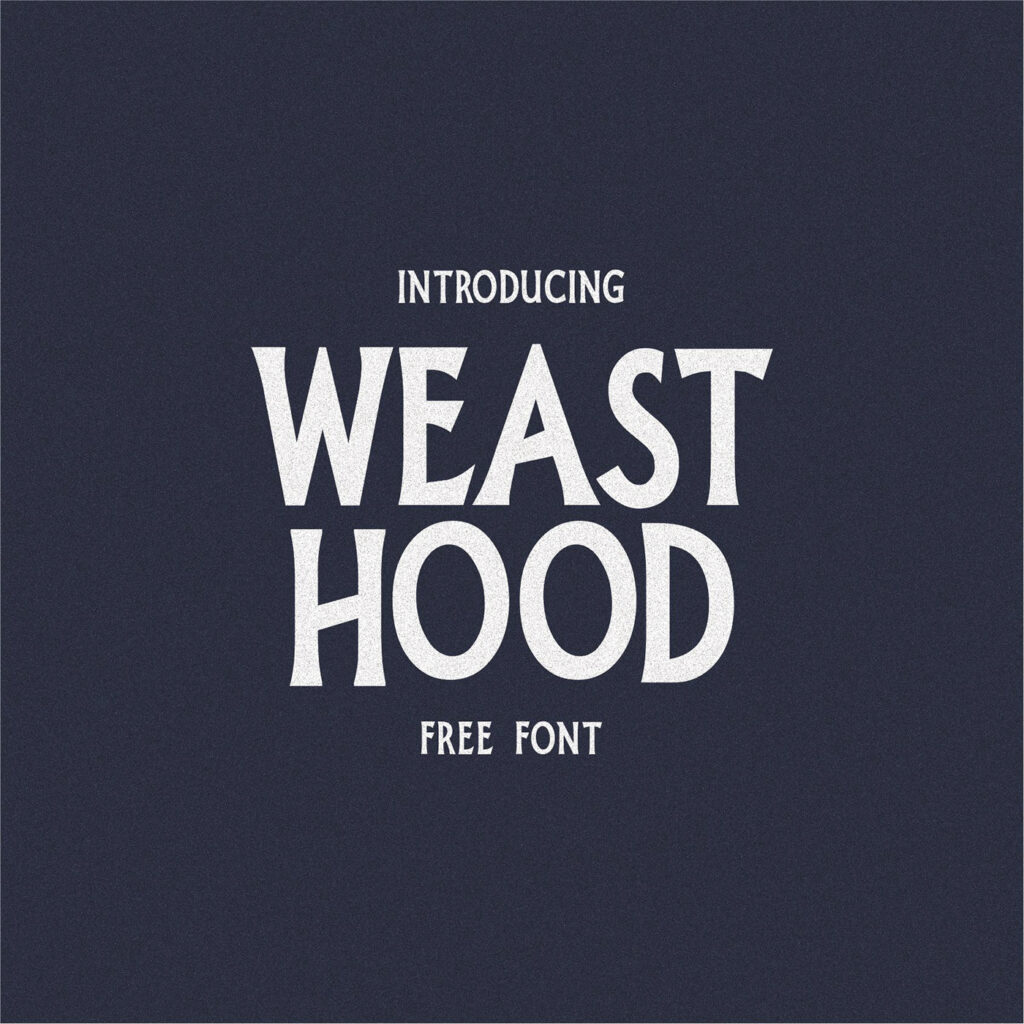
Introducing WEAST HOOD free font is a combination of an luxury, modern, It can be used to create almost all types of design projects like print materials, bussines card, logos, and many more.
WEAST HOOD Free Font